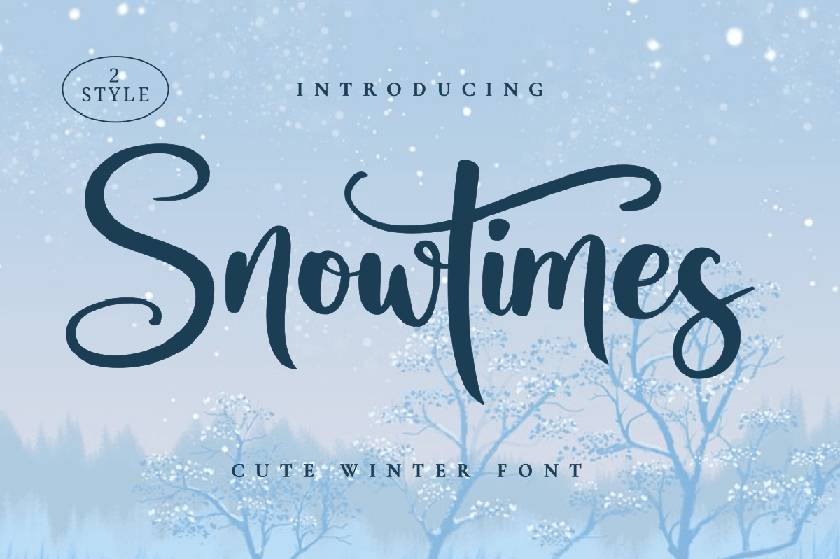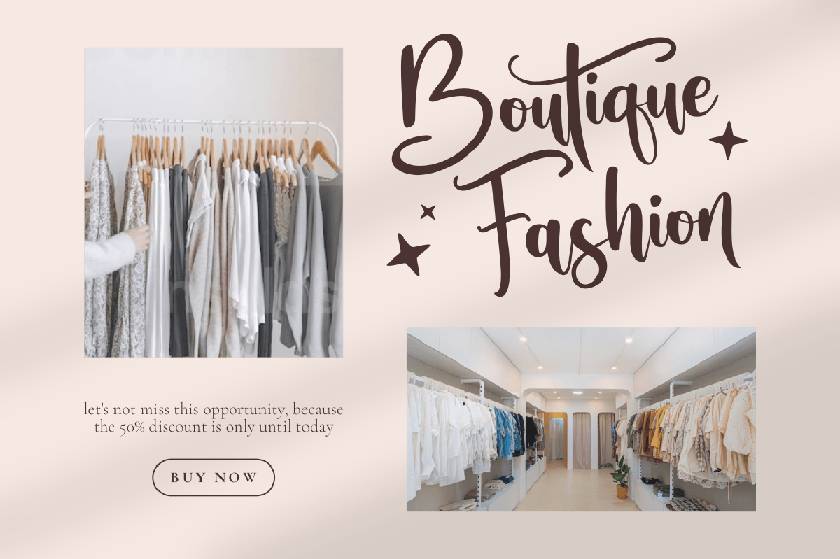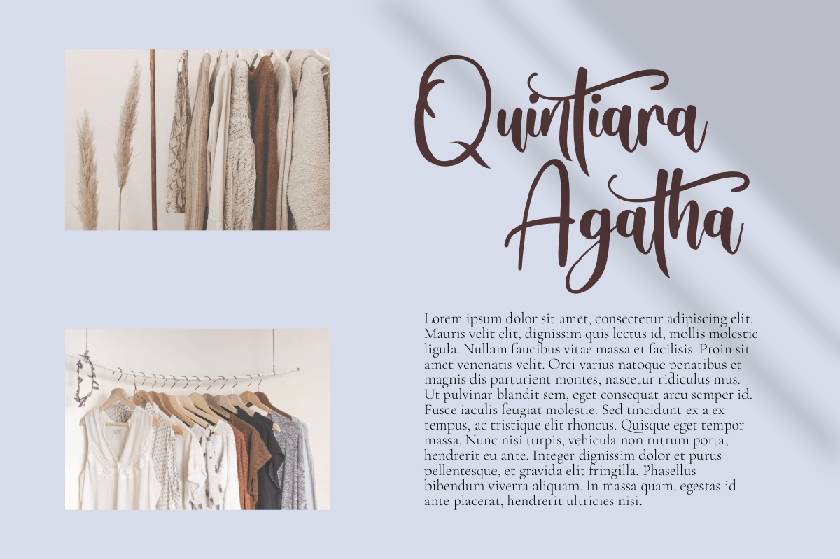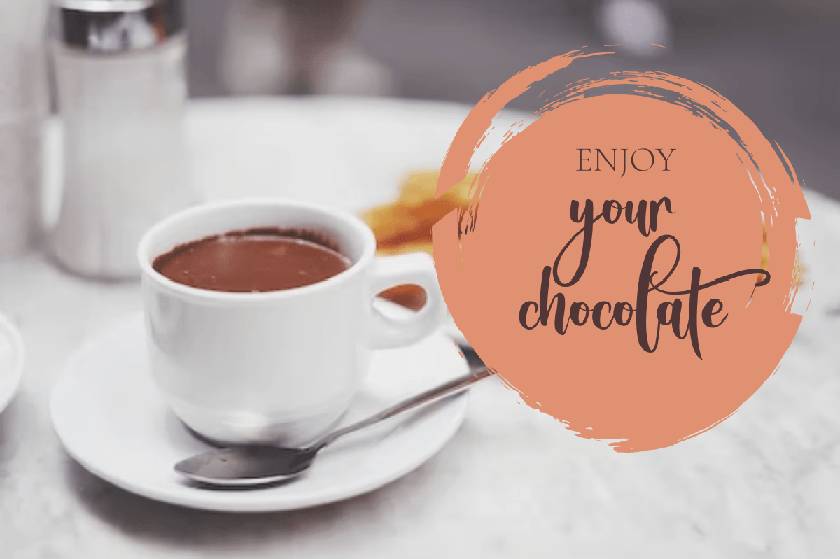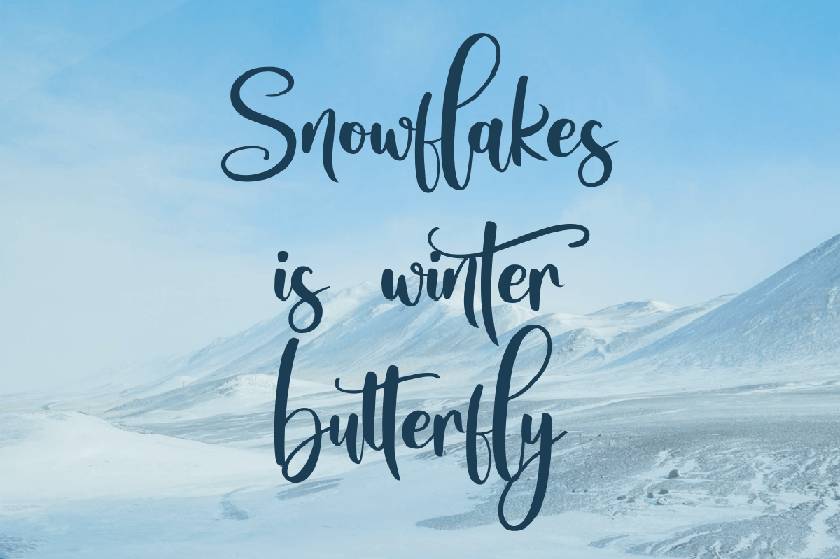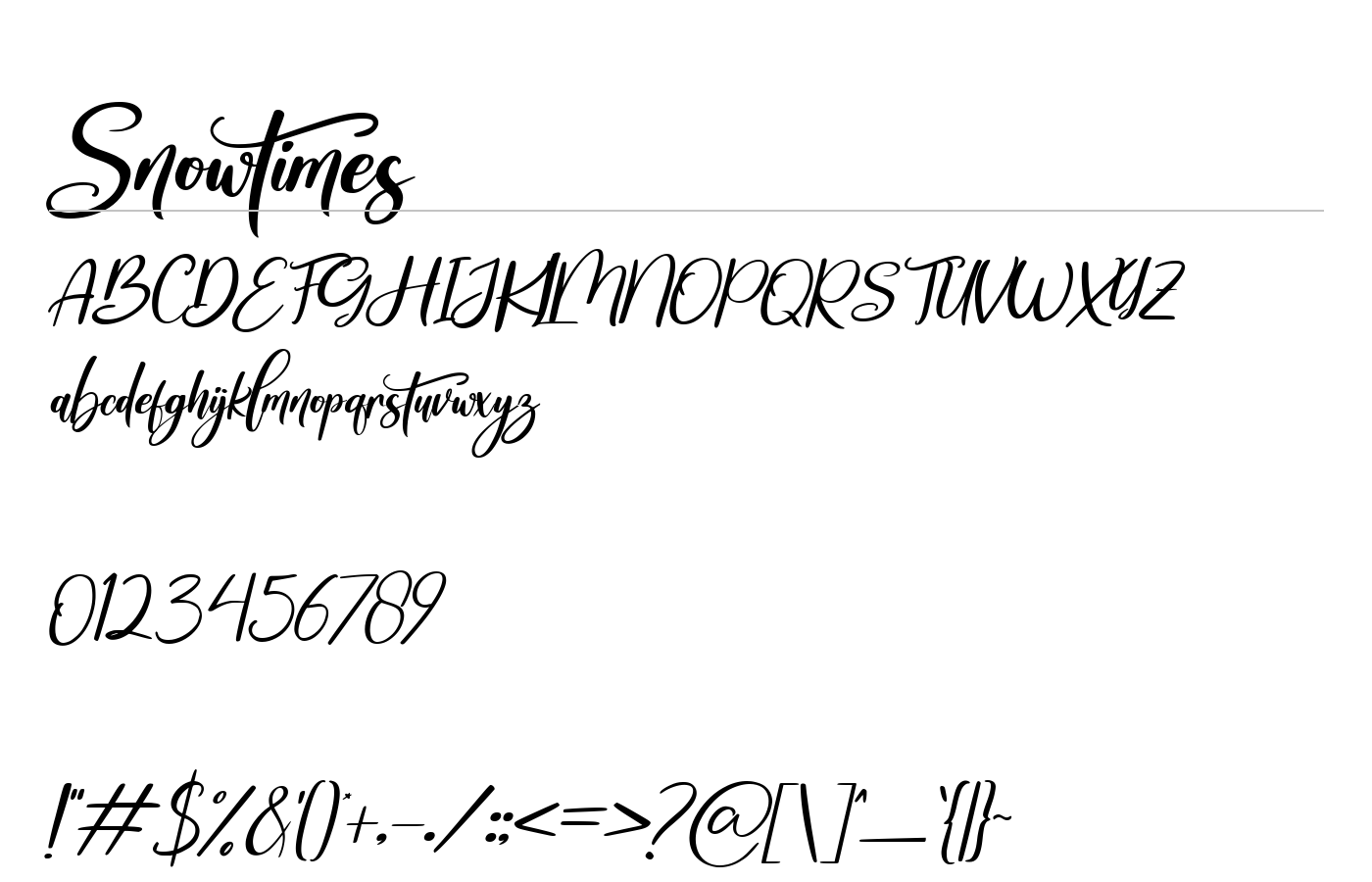
Snowtimes is a stylish and elegant script font with flowing, calligraphic strokes that combine both light and bold weights, giving it a lively, handcrafted feel. Its smooth curves and whimsical flourishes make it perfect for invitations, branding, and creative projects that require a refined yet playful touch. This font works beautifully for luxury packaging, logos, and decorative headlines where personality and charm are key.
Snowtimes Font
About Snowtimes Font
| Font family | Snowtimes Font |
| Designer | Nur Rohman Rizki |